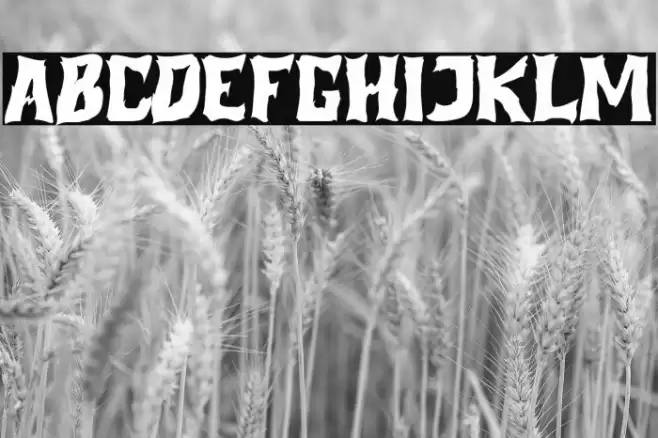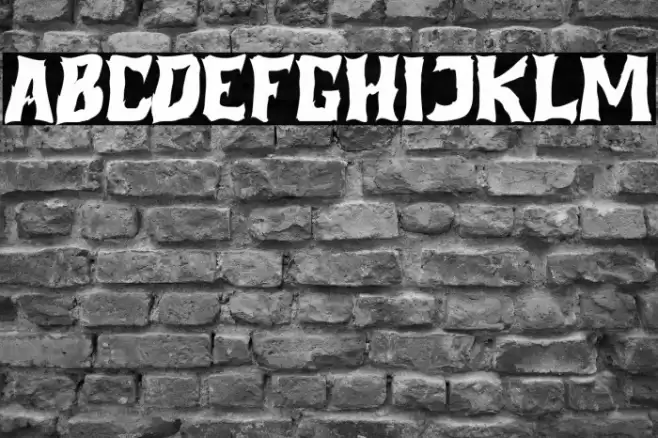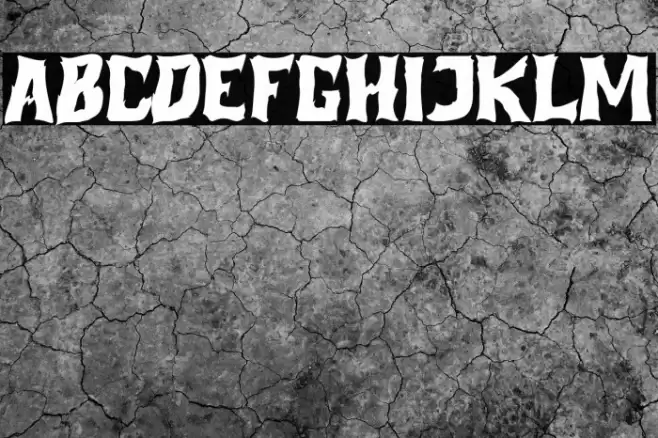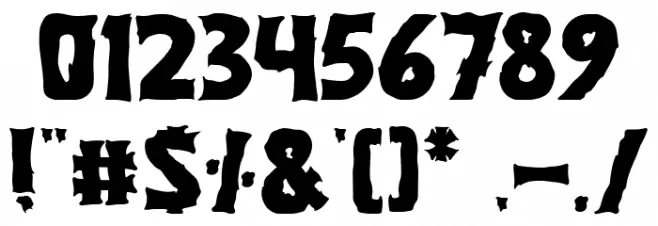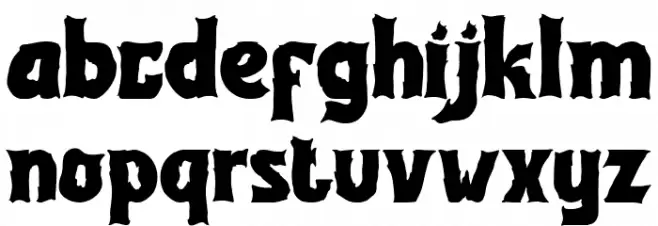
Pumpkin Night Font
Pumpkin Night Description
This font features a bold and jagged design, reminiscent of carved pumpkins or eerie Halloween themes. The characters have an irregular, hand-cut appearance, with sharp edges and uneven strokes that create a sense of movement and unpredictability. The uppercase and lowercase letters maintain a consistent style, with exaggerated serifs and a playful, spooky aesthetic. Numbers and special characters follow the same design principles, ensuring a cohesive look across all text elements. The font's unique style makes it ideal for seasonal or themed projects, capturing attention with its distinctive and artistic flair.
A bold, jagged font with a spooky, hand-carved appearance from Uncategorized fonts.
- Font: Pumpkin Night
- Proposed Projects: Ideal for Halloween-themed designs, party invitations, posters, and decorative signage.
- Use Case: Headlines, Logos, Decorative text
Pumpkin Night UPPERCASE
Pumpkin Night LOWERCASE
Pumpkin Night OTHER CHARS